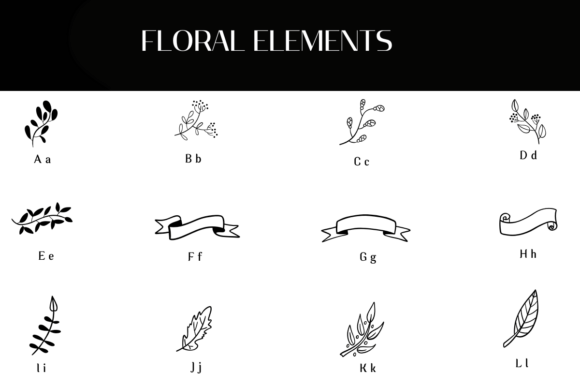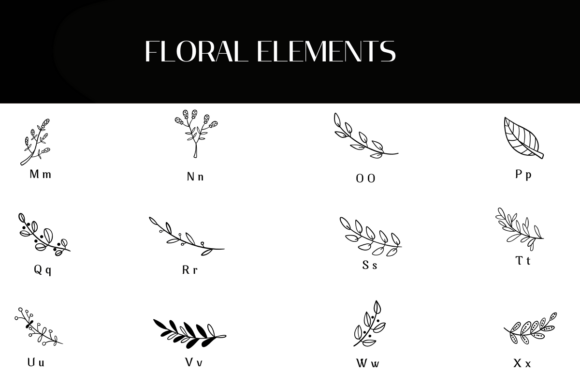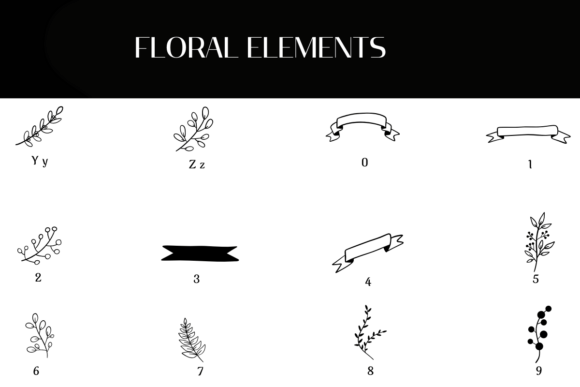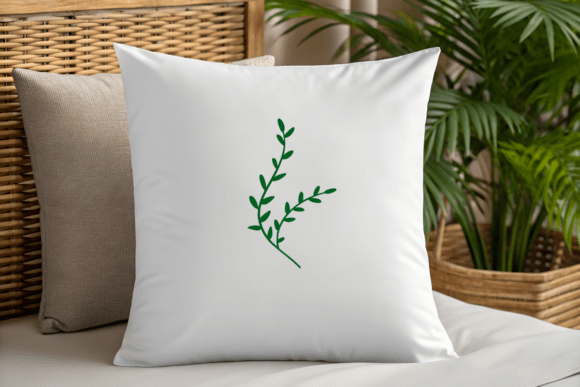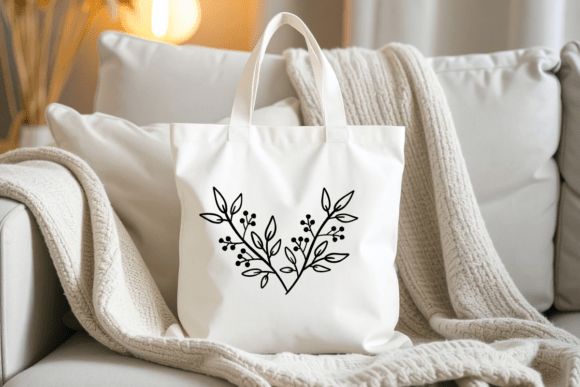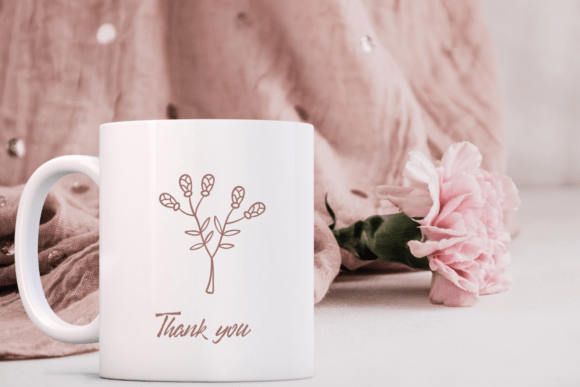
The Blooming Charm of Floral Elements Font
I’ll never forget the time I was working on a whimsical garden-themed project for a client, and I just couldn’t find the right font to bring it all together. The design was supposed to be playful, yet elegant, and I was stuck in a creative rut. That’s when I stumbled upon the Floral Elements font – a cute dingbats font that instantly added a touch of magic to my design. In this article, I’ll share my experience with Floral Elements, its features, and how to make the most of it in your creative projects.
An Honest Review of Floral Elements
- ✨ The font’s adorable floral designs and illustrations are perfect for adding a touch of whimsy to any project.
- ✅ The characters are well-designed and visually appealing, making it easy to use in a variety of contexts.
- 💐 The font’s dingbats style allows for endless creative possibilities, from garden-themed designs to more abstract concepts.
While Floral Elements is a delightful font, there are a few things to keep in mind:
- ⚠️ The font might not be the best choice for body text, as it’s primarily designed for display purposes.
- 🤔 Some characters may not work well at very small sizes, so it’s best to use it at larger sizes for optimal results.
One of the exciting features of Floral Elements is its support for OpenType features and glyphs. These features allow you to access additional characters and stylistic alternates, adding more variety to your design. To access these features:
The Designer Inspiration Behind Floral Elements
Floral Elements was designed with the intention of capturing the whimsy and charm of a garden in bloom. The designer, inspired by the beauty of nature, created a font that would bring a touch of elegance and playfulness to any design. Whether you’re working on a garden-themed project or simply want to add a touch of whimsy to your design, Floral Elements is the perfect choice.
Q: What type of projects is Floral Elements best suited for?
A: Floral Elements is perfect for garden-themed designs, wedding invitations, and other projects that require a touch of whimsy and elegance.
Q: Is Floral Elements available in different languages?
A: Floral Elements is primarily designed for English and other Western languages. If you need support for non-Western languages, be sure to check the font’s capabilities.
Q: Can I use Floral Elements with other fonts?
A: Absolutely! Floral Elements pairs well with a variety of fonts, from elegant scripts to modern sans-serifs. Experiment with different combinations to find the perfect look for your project.